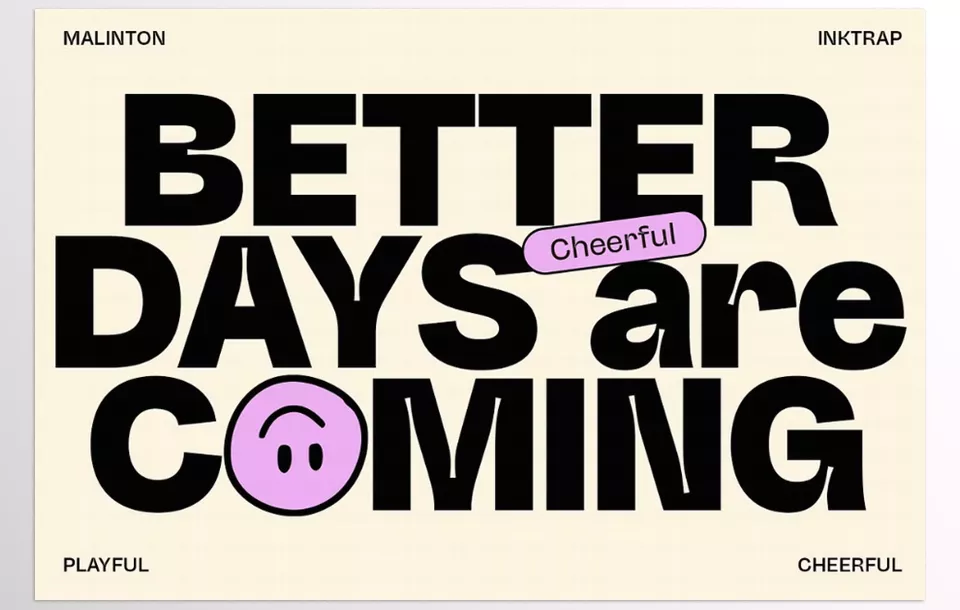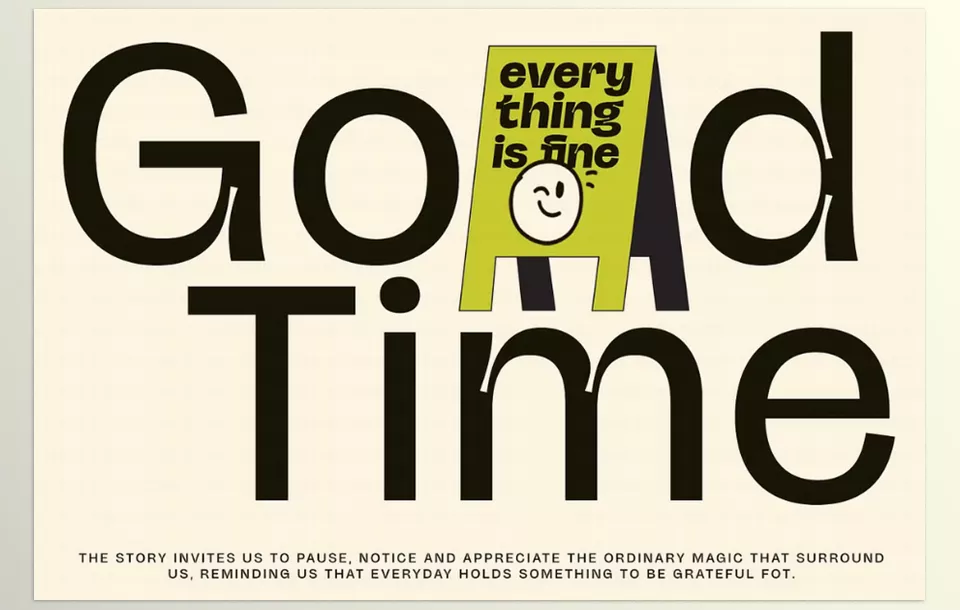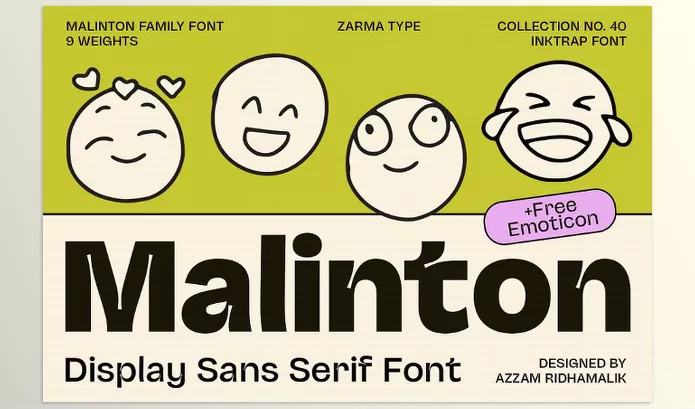
The Malinton Display Sans font family from Zarma Type combines a playful touch with a solid professional look. Thanks to its extensive language support, OpenType features, and nine unique weights, which include ink traps and emoticon alternatives, it is well-suited for branding and editorial designs.
Image 1: It’s a personality booster for your designs!
Image 2: Unique Typography